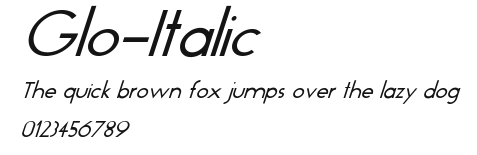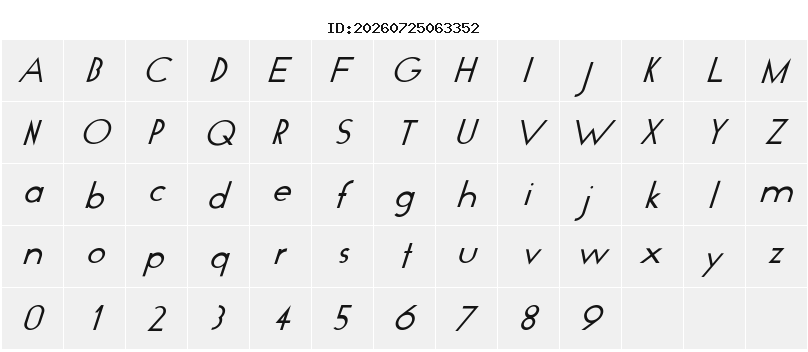
About Glo-Italic.ttf
Glo-Italic.ttf is a modern, elegant sans-serif font designed for ultimate readability and visual harmony. Perfect for branding, headlines, web design, and print materials.